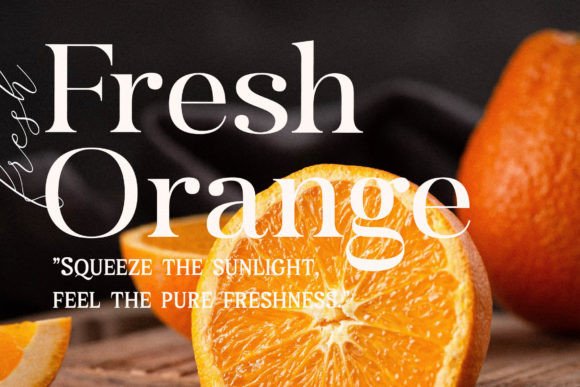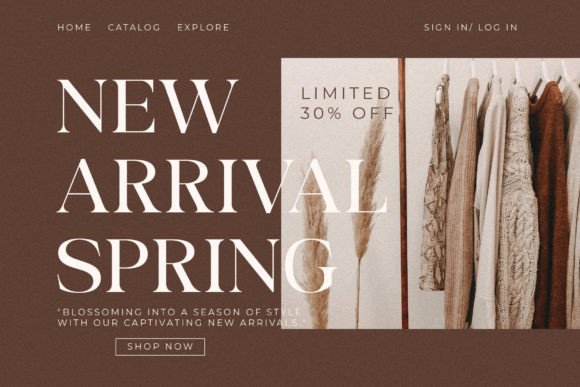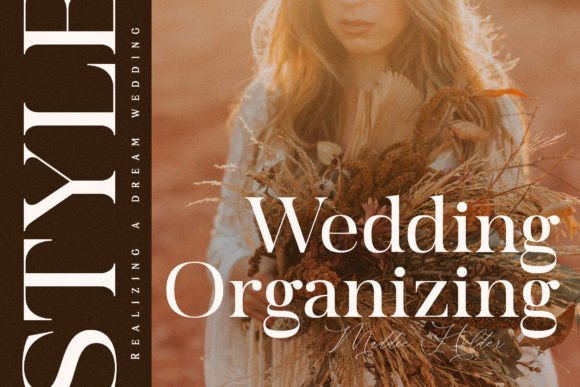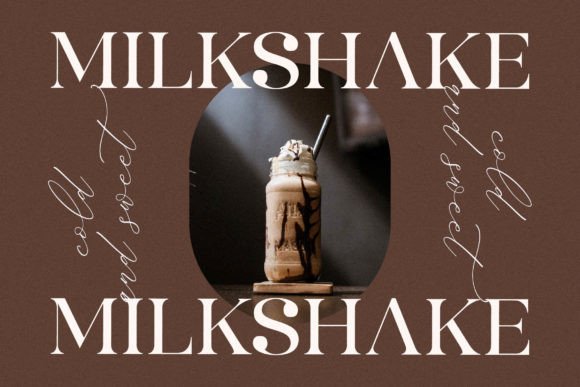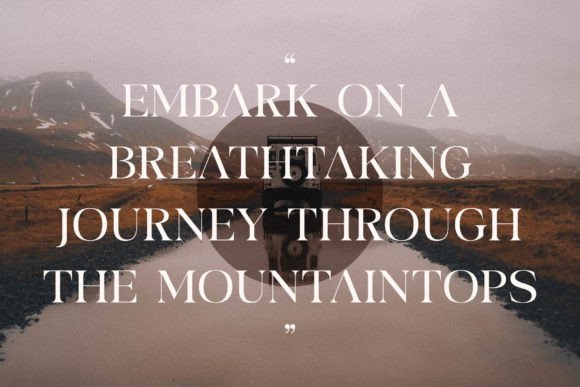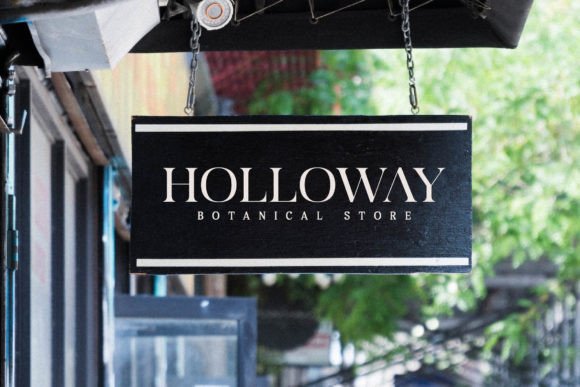
Garfist Font: Elevate Your Design with Elegance and Sophistication
In the world of typography, a font can make or break a design. For designers and crafters seeking to add a touch of luxury and sophistication to their work, the Garfist Font is an excellent choice. This modern and classic serif typeface is perfect for creating elegant logos, book or movie titles, fashion brand identities, magazine layouts, and so much more.
The Characteristics of Garfist Font
Garfist Font boasts a unique blend of modernity and classic charm. Its serif design provides a sense of tradition and timelessness, while its clean lines and precise curves give it a contemporary feel. The font’s versatility makes it suitable for a wide range of applications, from high-end fashion brands to literary publications.
Perfect for Luxurious and Elegant Designs
When it comes to creating designs that exude luxury and elegance, the Garfist Font is an ideal choice. Its sophisticated appearance makes it perfect for:
- Elegant Logos: Create a lasting impression with a logo that showcases your brand’s luxury and sophistication.
- Book or Movie Title Design: Add a touch of classic glamour to your book or movie titles with Garfist Font.
- Fashion Brand Identity: Elevate your fashion brand with a font that embodies style and sophistication.
- Magazine Layouts: Create a luxurious and high-end feel for your magazine with Garfist Font.
- Clothes and Lettering: Use Garfist Font to add a touch of elegance to your clothing designs, lettering, and quotes.
Why Choose Garfist Font?
With so many fonts available, why choose Garfist Font? Here are just a few reasons:
- Versatility: Garfist Font is suitable for a wide range of applications, from digital designs to print materials.
- Timelessness: The font’s classic design ensures that it will remain relevant for years to come.
- Elegance: Garfist Font adds a touch of sophistication and luxury to any design.
- Readability: The font’s clean lines and precise curves make it easy to read, even in small sizes.
Tips for Using Garfist Font
To get the most out of Garfist Font, here are a few tips:
- Pair with Sans-Serif Fonts: Combine Garfist Font with sans-serif fonts for a striking contrast.
- Experiment with Font Sizes: Play with different font sizes to create visual hierarchy and emphasis.
- Use in Headlines and Titles: Garfist Font is perfect for headlines and titles, where its elegance and sophistication can shine.
In conclusion, the Garfist Font is an excellent choice for designers and crafters seeking to add a touch of luxury and sophistication to their work. Its modern and classic serif design makes it perfect for a wide range of applications, from elegant logos to book or movie titles, fashion brand identities, and magazine layouts. With its versatility, timelessness, elegance, and readability, Garfist Font is sure to elevate your designs to the next level.
Whether you’re a seasoned designer or a crafty DIY enthusiast, Garfist Font is a valuable addition to your typography toolkit. So why not give it a try and experience the elegance and sophistication it has to offer?